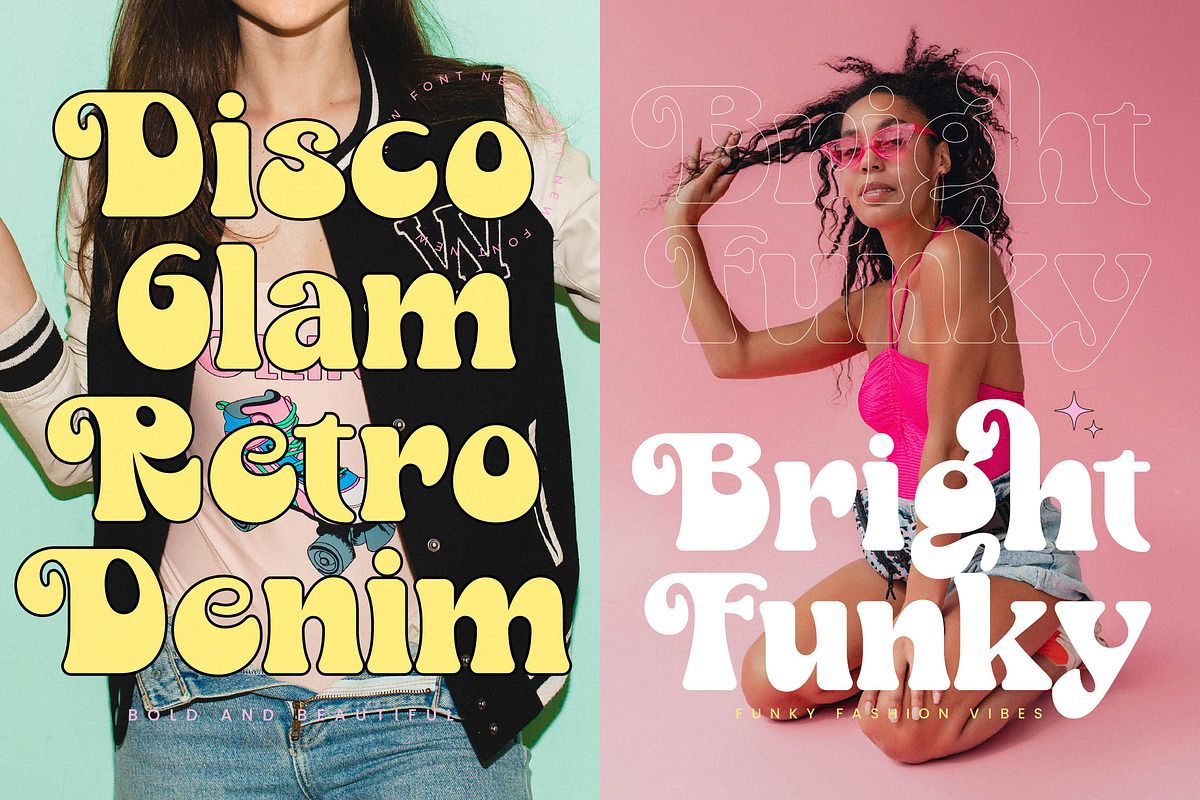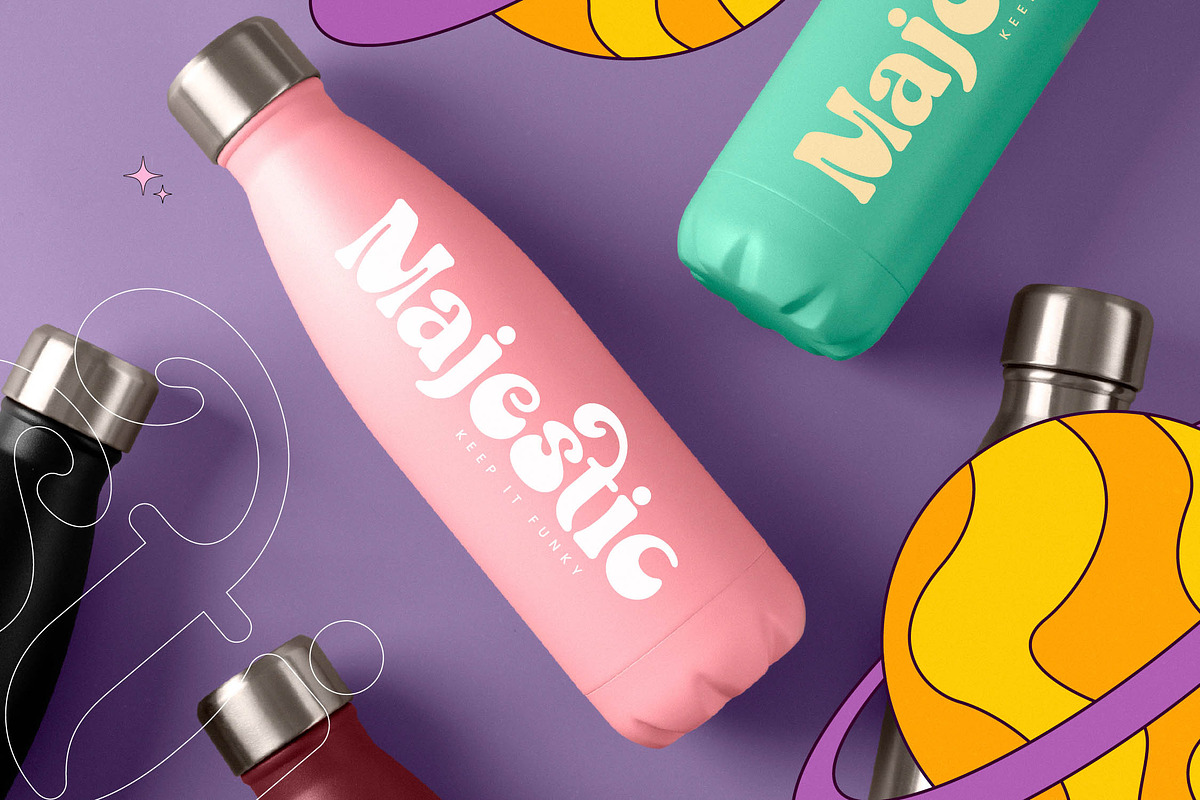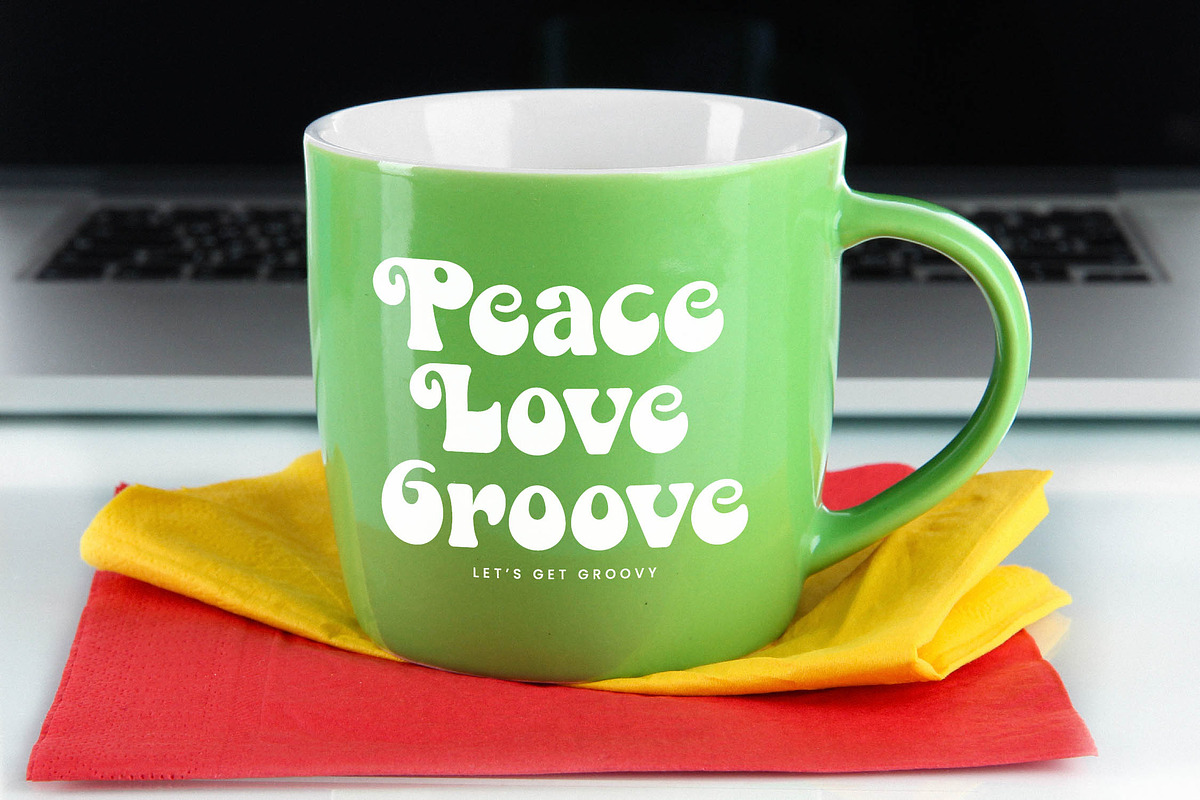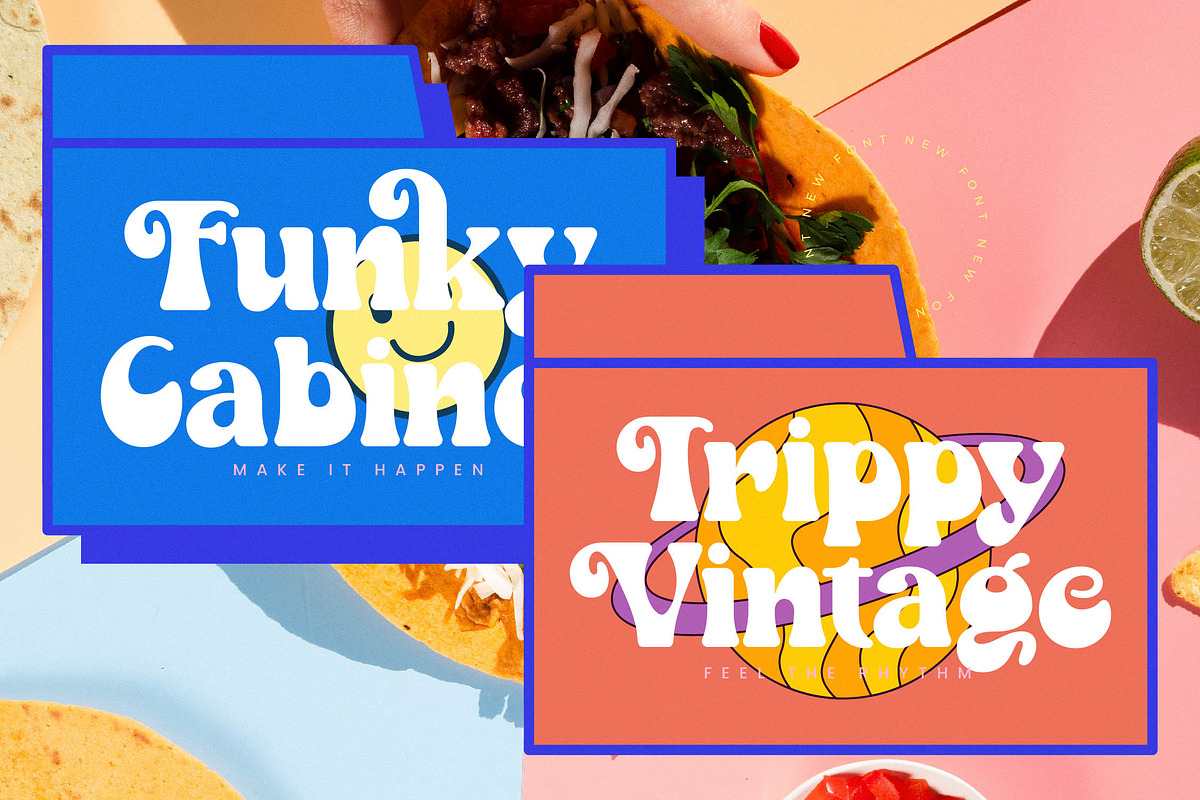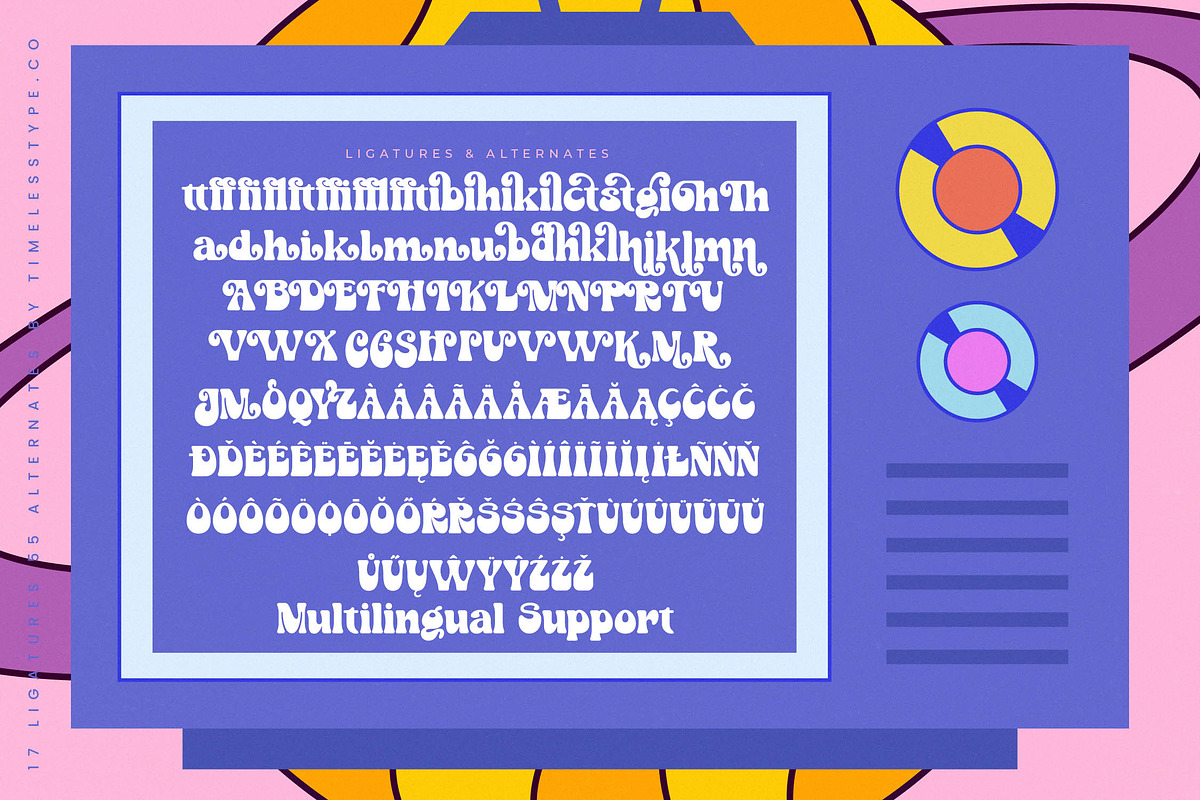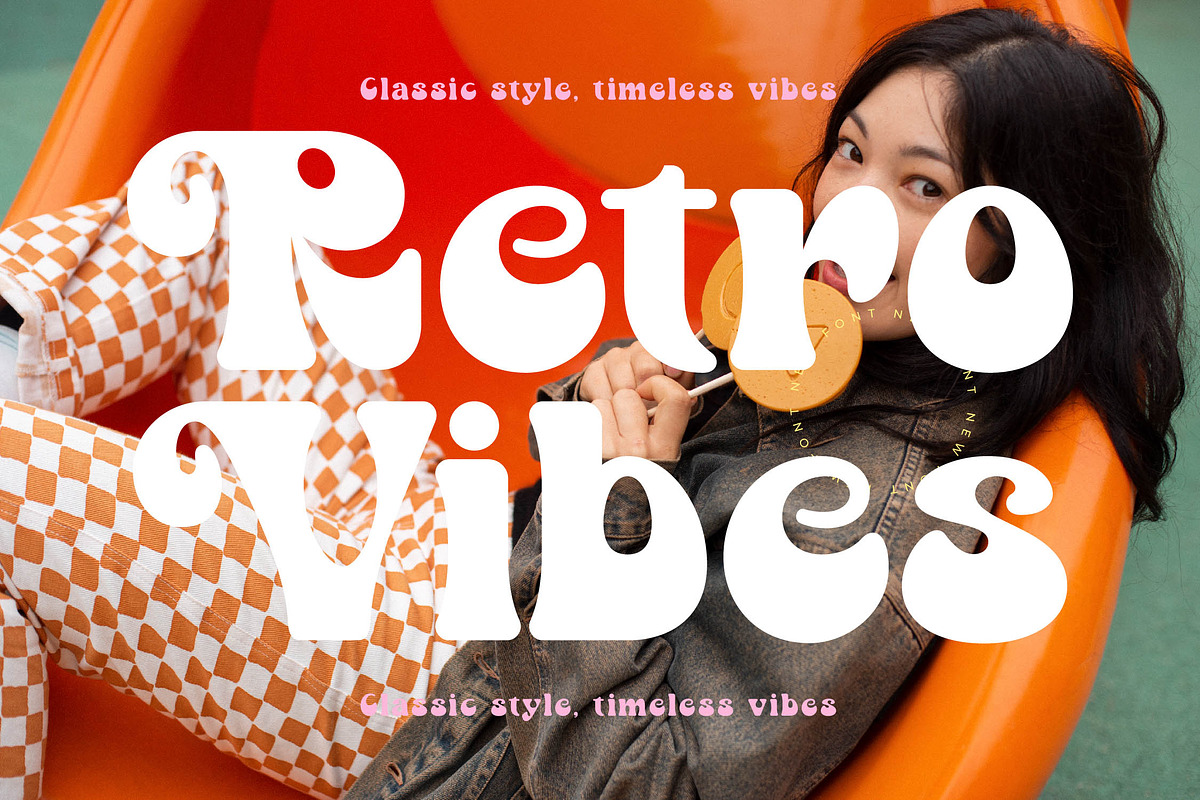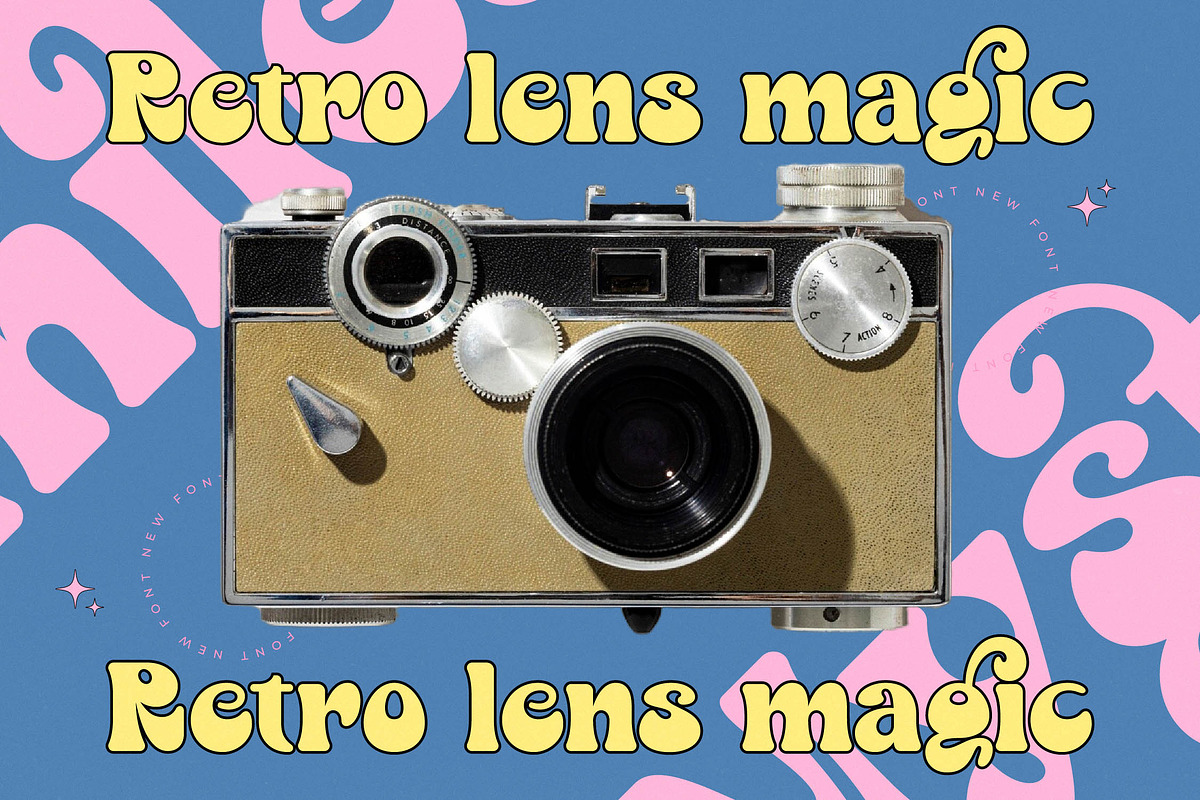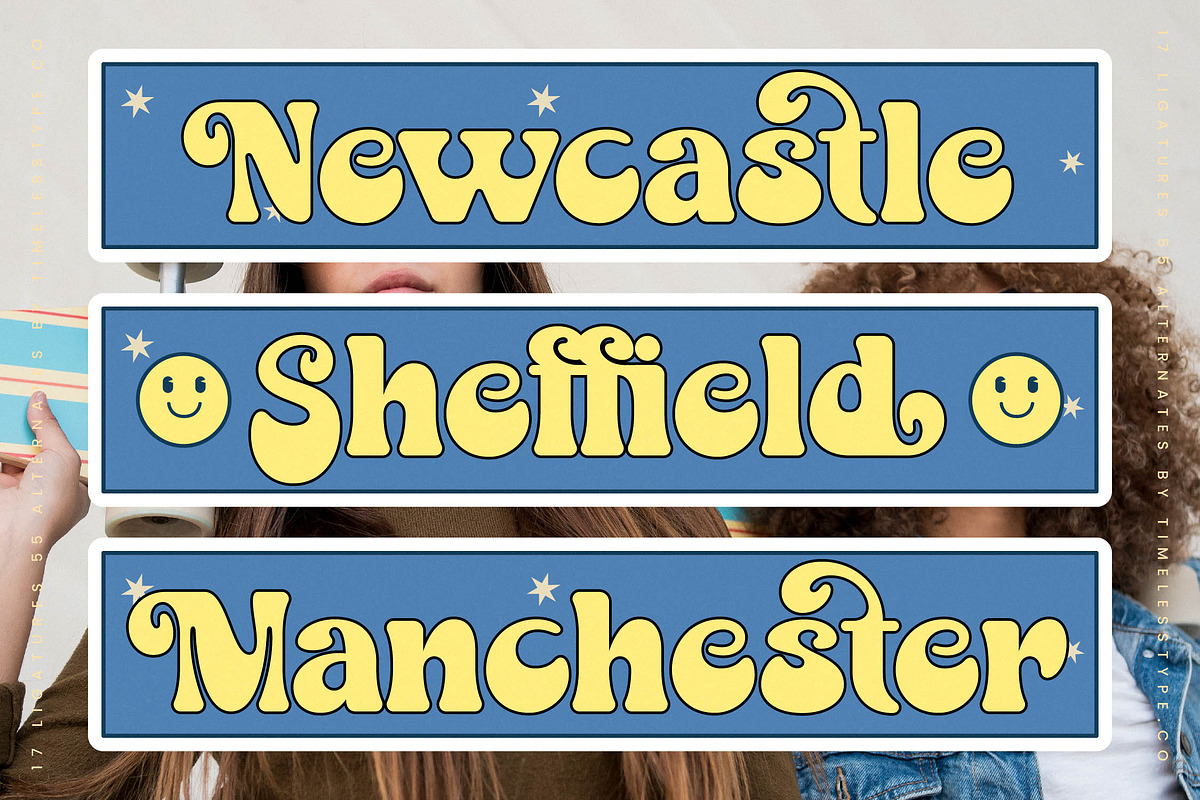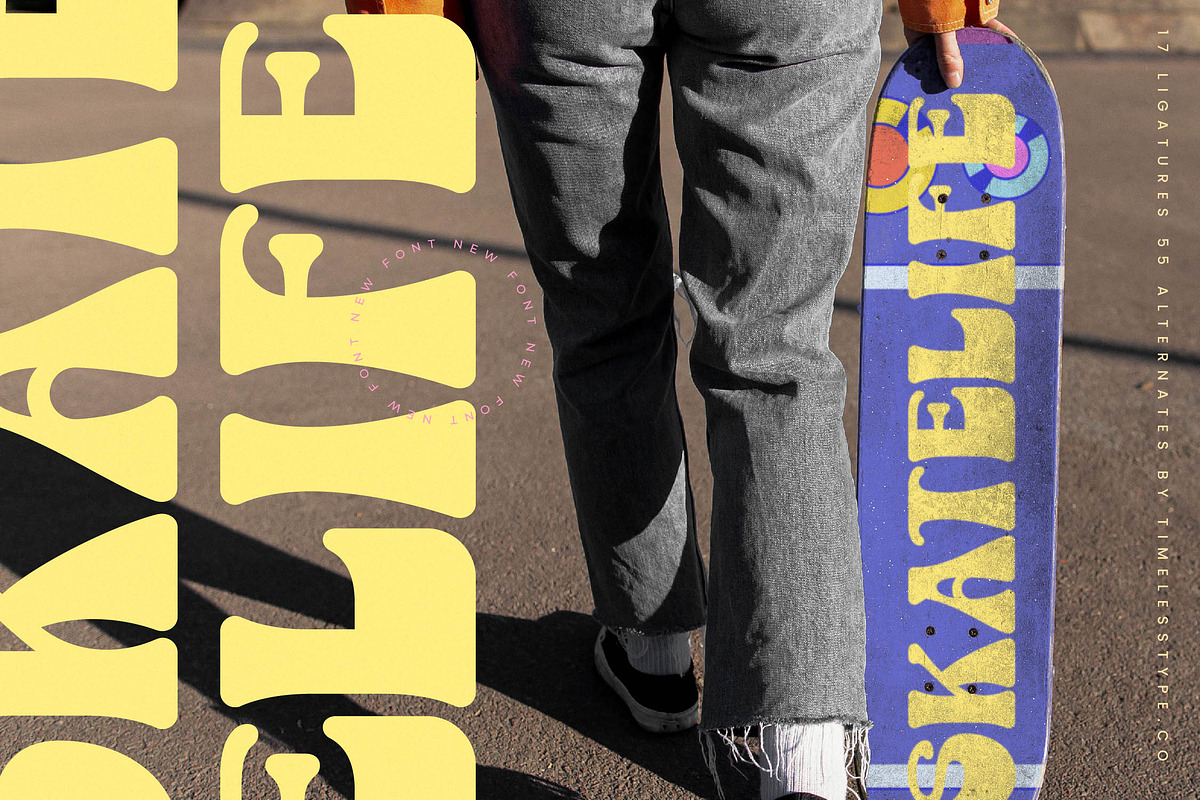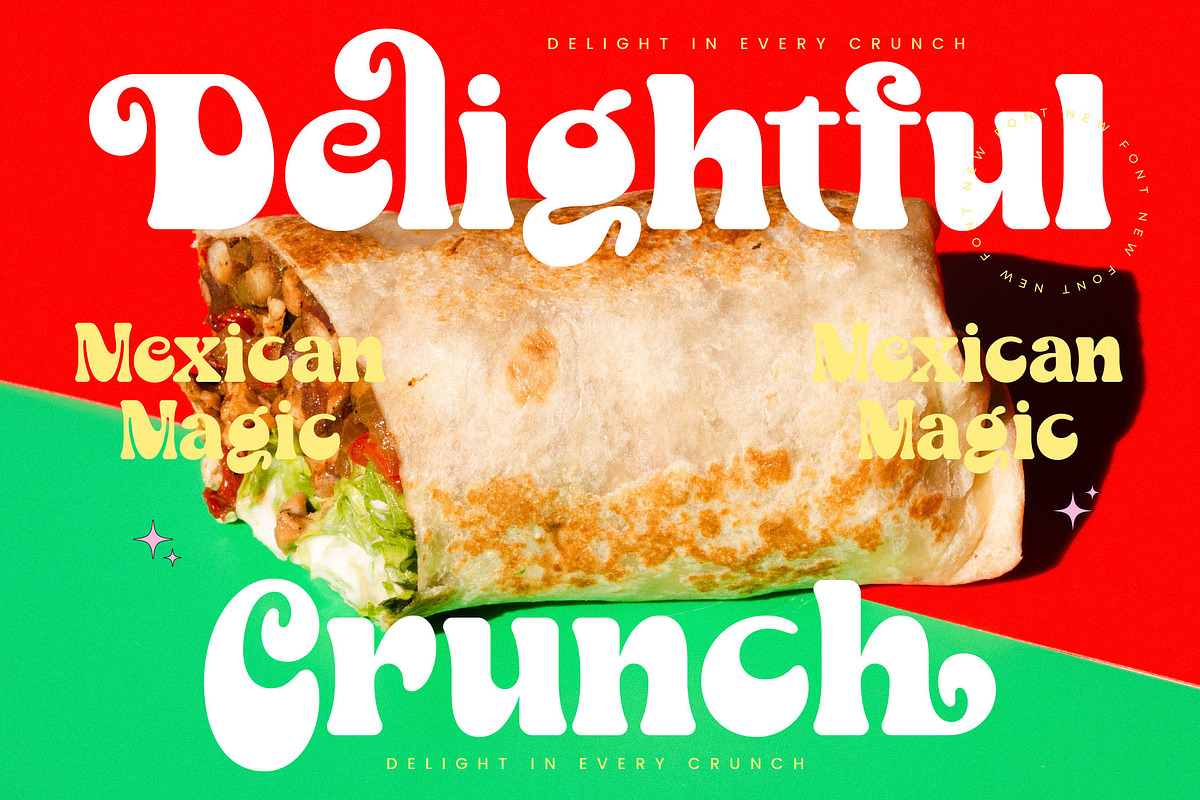
Mystic Smiles Groovy Display Font
Unlock a world of vibrant nostalgia and expressive curves with Mystic Smiles, a typeface designed to radiate pure joy and retro energy. This font captures the essence of a carefree era, bringing a sense of warmth and bold playfulness to every design project it touches.
Drawing inspiration from the psychedelic posters of the late 60s and the funky television aesthetics of the 70s, this typeface tells a story of cosmic exploration and musical revolution. It reflects the fluid motion of liquid light shows and the bold confidence of vintage vinyl record covers.
This typeface delivers incredible branding impact by blending the sophistication of a luxury typography piece with the playful energy of the 1970s. While it breaks the mold of a traditional high-contrast serif, it functions as a modern serif display alternative that brings a fresh, funky perspective to any editorial font collection.
Perfectly timed for the current modern serif trend, this typeface offers a unique twist on the character-driven typography movement. It serves as a standout among editorial display fonts, providing designers with a bold, nostalgic aesthetic that remains remarkably contemporary and versatile in today's market.
This versatile typeface is the ultimate tool for logo design, branding, and social media graphics that need to pop. Its bold weight and unique silhouettes make it perfect for high-end packaging, vintage-inspired fashion labels, and even unconventional wedding stationery or high-impact editorial layouts.
Each character has been meticulously refined to include a vast array of ligatures and alternates that allow for custom-tailored lettering. With comprehensive multilingual support and a full suite of international characters, this font ensures your message resonates across the globe while maintaining its distinct swashes and artistic flair.